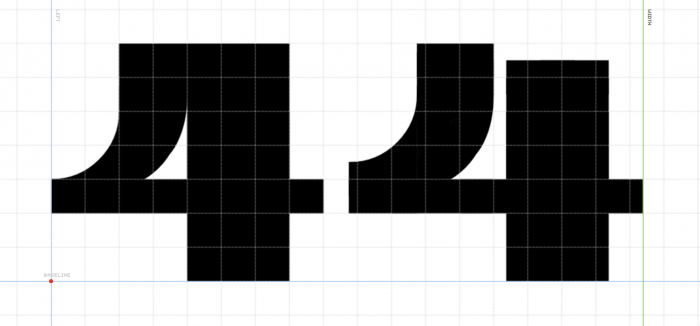
Nice one. As for the 4, I would use the lower number 2's part from middle to bottom to make the part fro middile to top of the 4, hope that makes sense :)
@kassymkulov thanks for your words and suggestion. I think I understood. The 4 looks good that way, yet I am still undecided. Placed the alernative on & glyph for now.
Another idea...
@elmoyenique thank you, it inspired me and I think I found it :-)
That's not quite what I meant, here is the sample:
Oooh, that one is really pretty. I think I will experiment for a while now :-) Thank you again.